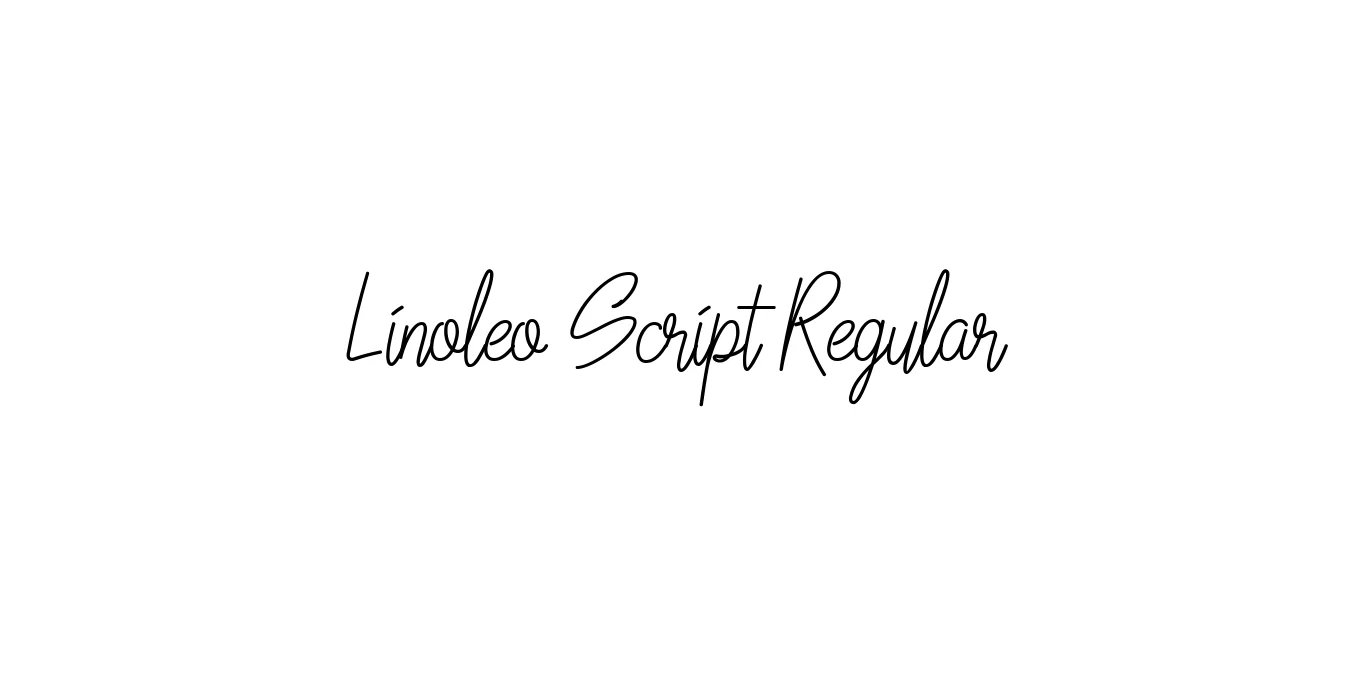
Linoleo Script Regular
Designed by Måns Gräbäck
Linoleo Script Regular is a beautifully crafted typeface that draws inspiration from traditional linocut techniques and organic handwriting. Created by the renowned type designer Måns Gräbäck, this font family excels in providing a warm, human touch to digital designs. Its flowing ligatures and natural variations create a seamless aesthetic that avoids the mechanical look of many digital scripts, making it a favorite for designers seeking authenticity.
The versatility of Linoleo Script lies in its balanced weight and rhythmic letterforms, which ensure legibility even at smaller sizes. Whether used for high-end editorial layouts or rustic packaging, the font conveys a sense of artisanal craftsmanship and timeless elegance. Its extensive character set includes various alternates, allowing for a truly customized typographic experience in both professional and hobbyist projects.
Linoleo Script Regular Best Uses
Ideal for logos and identity projects that require a personal, artisanal feel.
Perfect for wedding stationery, greeting cards, and event announcements.
Adds a handmade touch to labels and product containers for organic goods.
Great for creating engaging, stylish quote graphics and promotional stories.